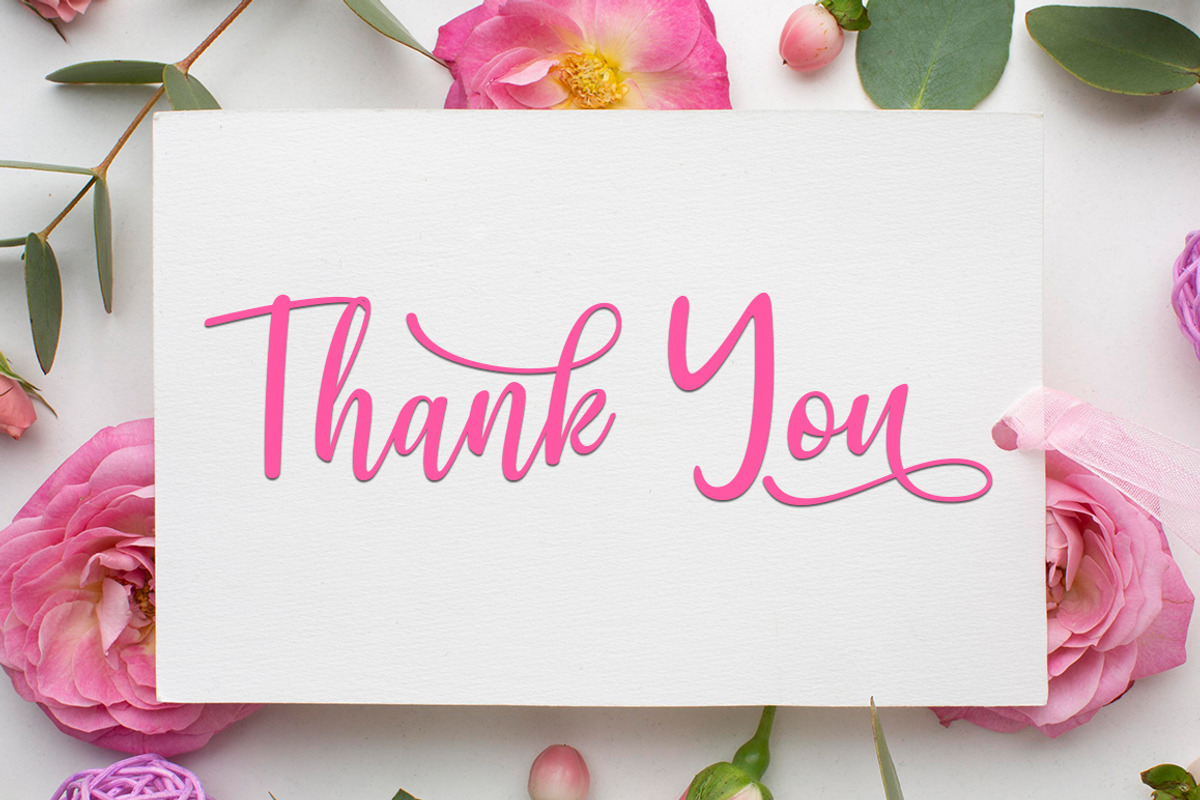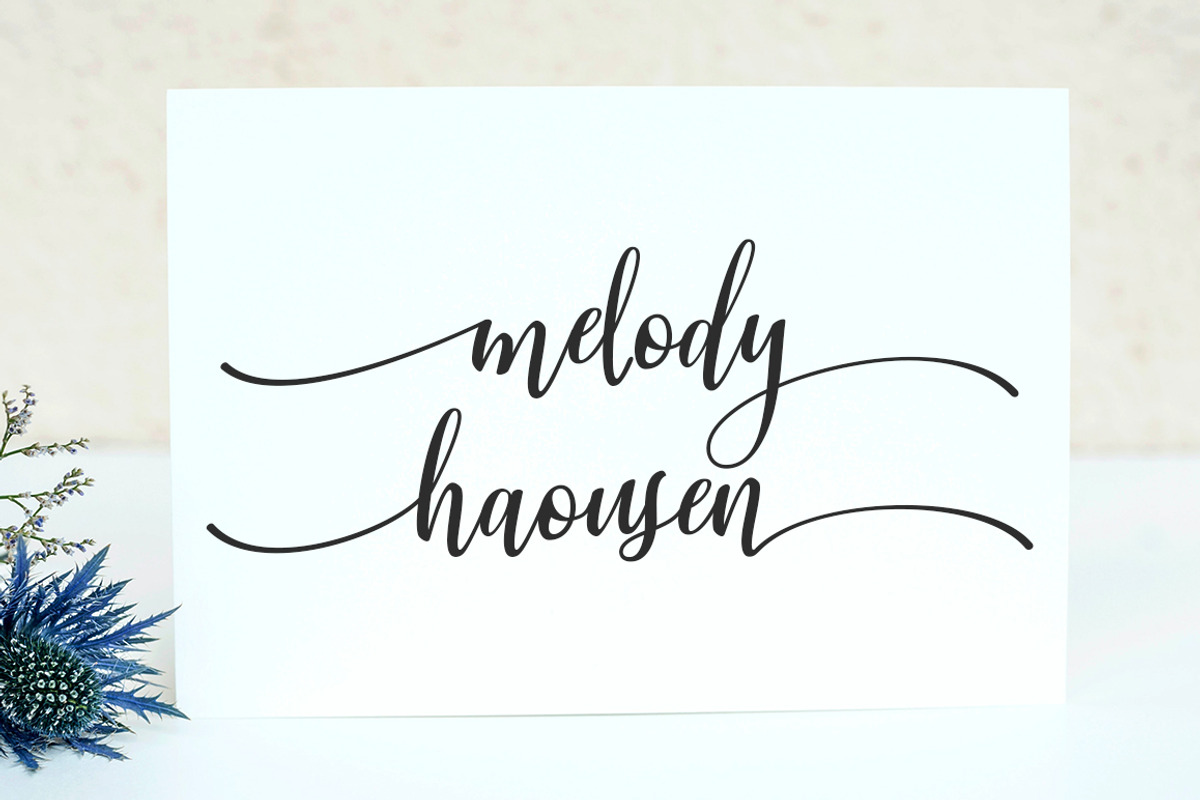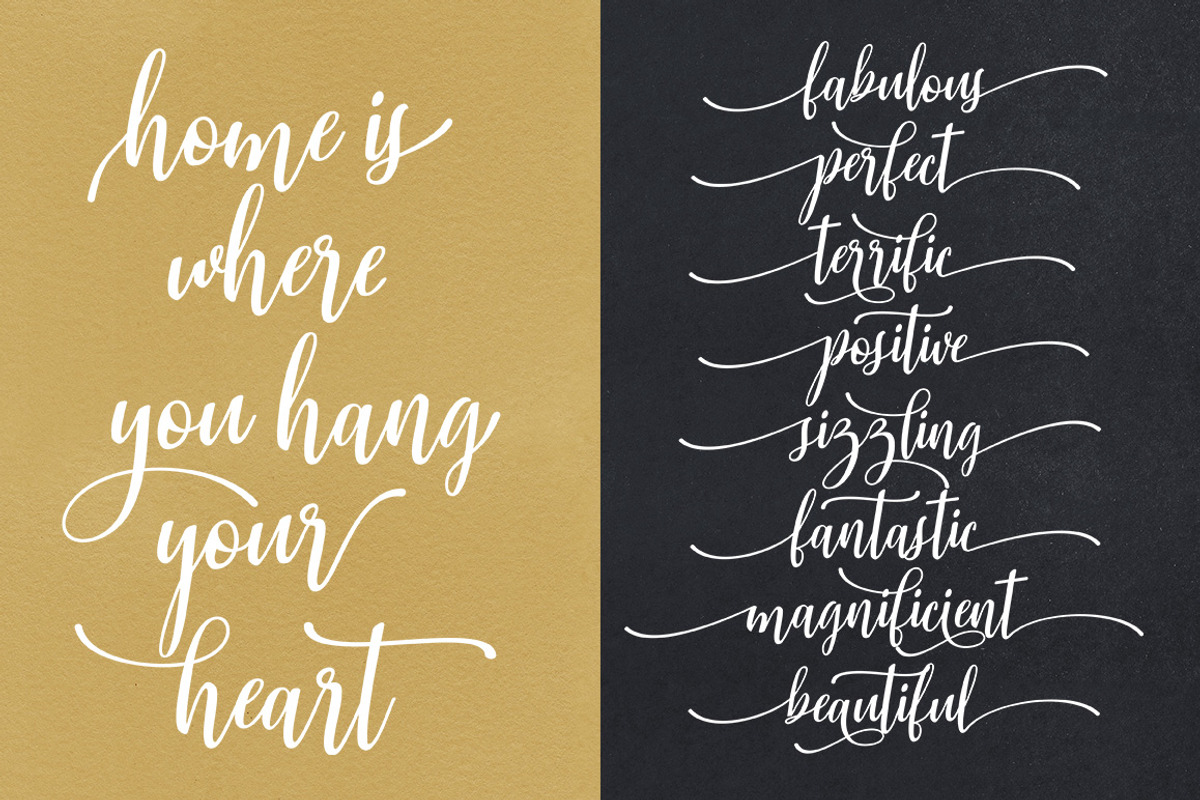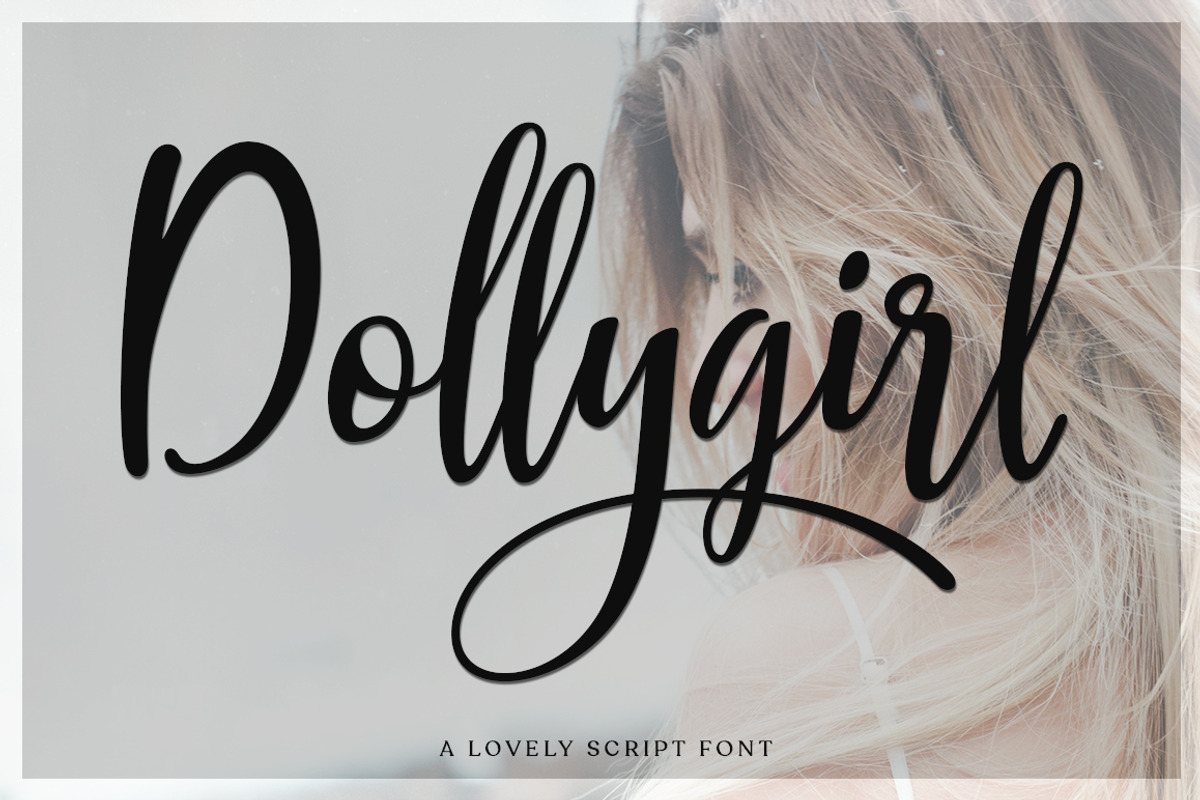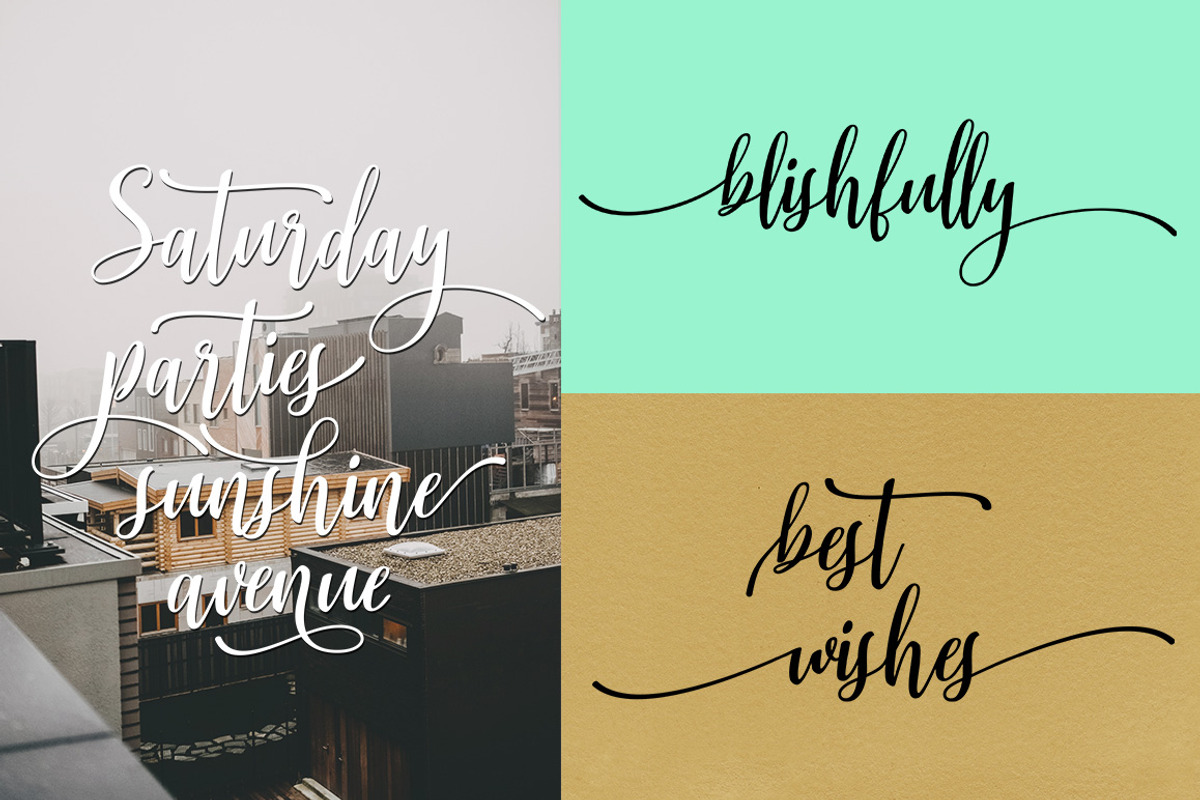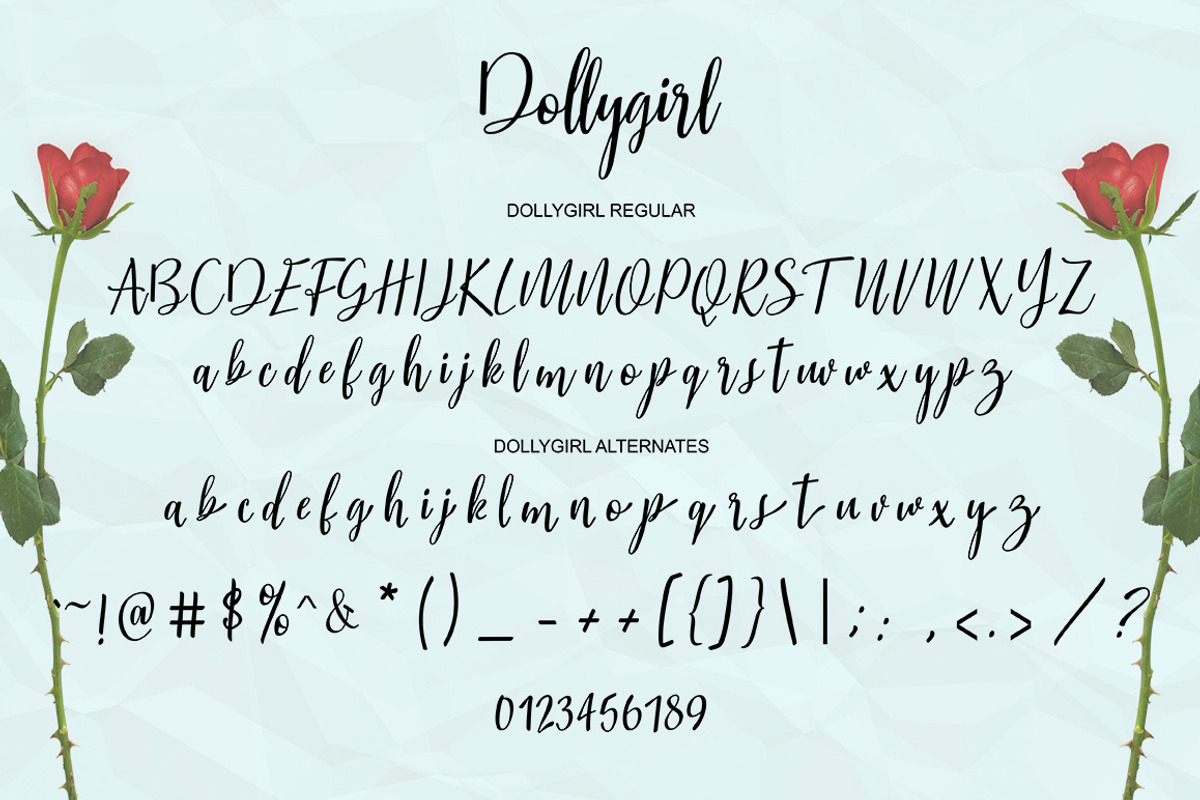
Dollygirl Script
Dollygirl Script is a new modern script font with an irregular base line. Trendy and feminine style.Dollygirl looks beautiful in wedding invitations, thank you cards, quotes, greeting cards, logos, business cards and much more. Perfect for use in ink or watercolors. Includes initial letters and terminals, alternatives and multiple language support.